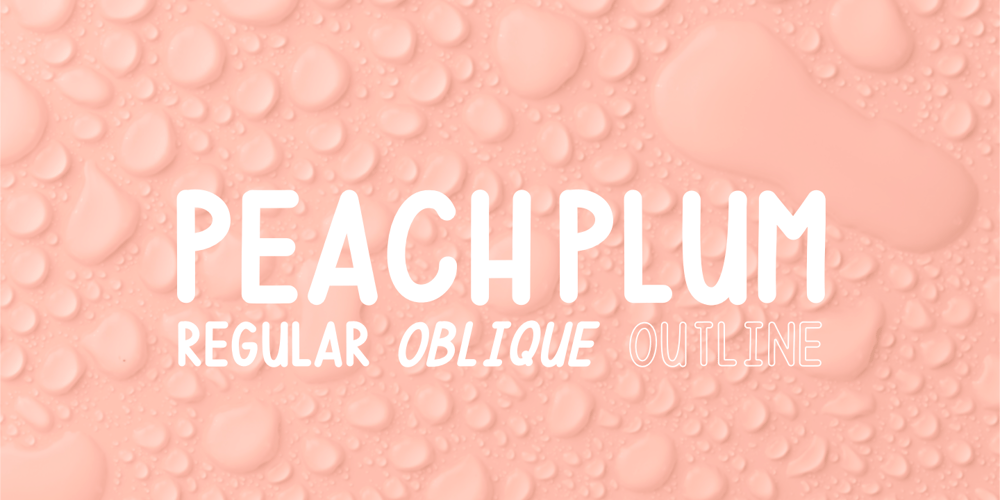
Peach Plum Font Family was designed by Alessa Jo and published by Melonaqua. Peach Plum contains 3 styles and family package options. Peach Plum is an elegant handwritten font style. It contains three styles: regular, oblique, and outline.